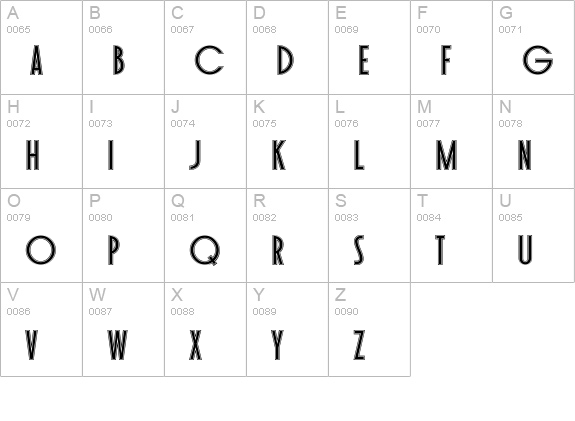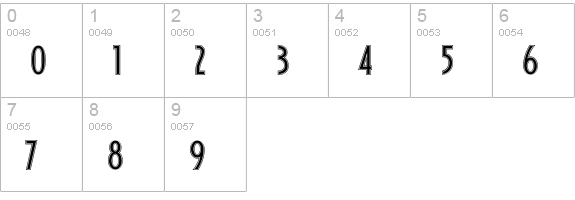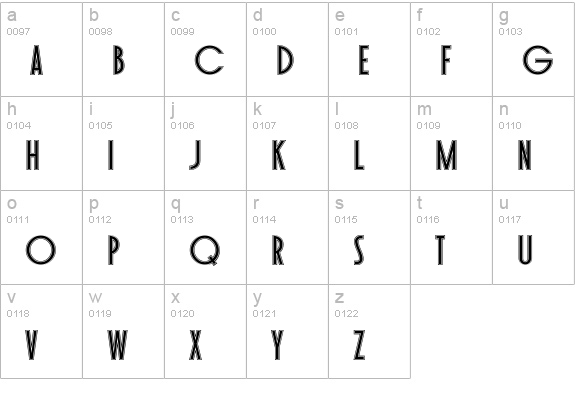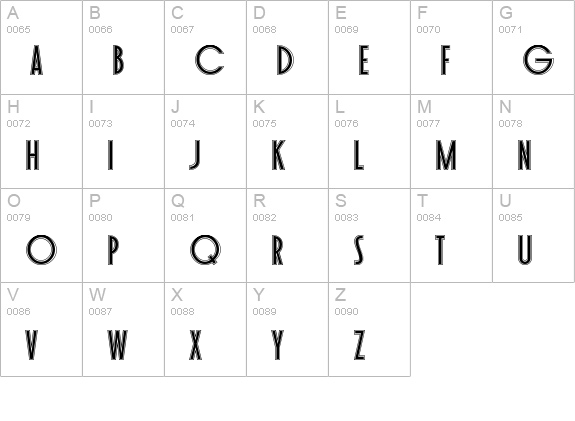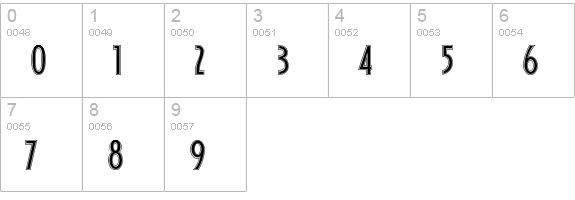
Toasted Vein BTN Inline Font Details
Toasted Vein BTN Inline is a captivating font that exudes a sense of sophistication and modernity. Its unique design features beautifully toasted edges on each letter, giving it a distinct and eye-catching appearance. This font is perfect for adding a touch of elegance to any design project, whether it be for branding, advertising, or creating stunning headlines. With its seamless inline style, Toasted Vein BTN Inline effortlessly combines the boldness of a display font with the intricacy of an inline font. Each letter is meticulously crafted, creating a harmonious balance between thick and thin strokes. The result is a visually stunning typeface that commands attention and adds a touch of refinement to any design. One of the best things about Toasted Vein BTN Inline is that it is freely available to download at FontsMarket.com. This means that you can easily incorporate this captivating font into your design projects without any hassle. Whether you are a professional designer or a creative enthusiast, this font is a valuable asset that will elevate your work to new heights. Whether you choose to use Toasted Vein BTN Inline for headlines, logos, packaging, or any other design element, it is sure to make a lasting impression. Its versatility and striking appearance will captivate viewers and leave a lasting impact. So, don't miss out on the opportunity to enhance your designs with this incredible font - download Toasted Vein BTN Inline for free at FontsMarket.com today!